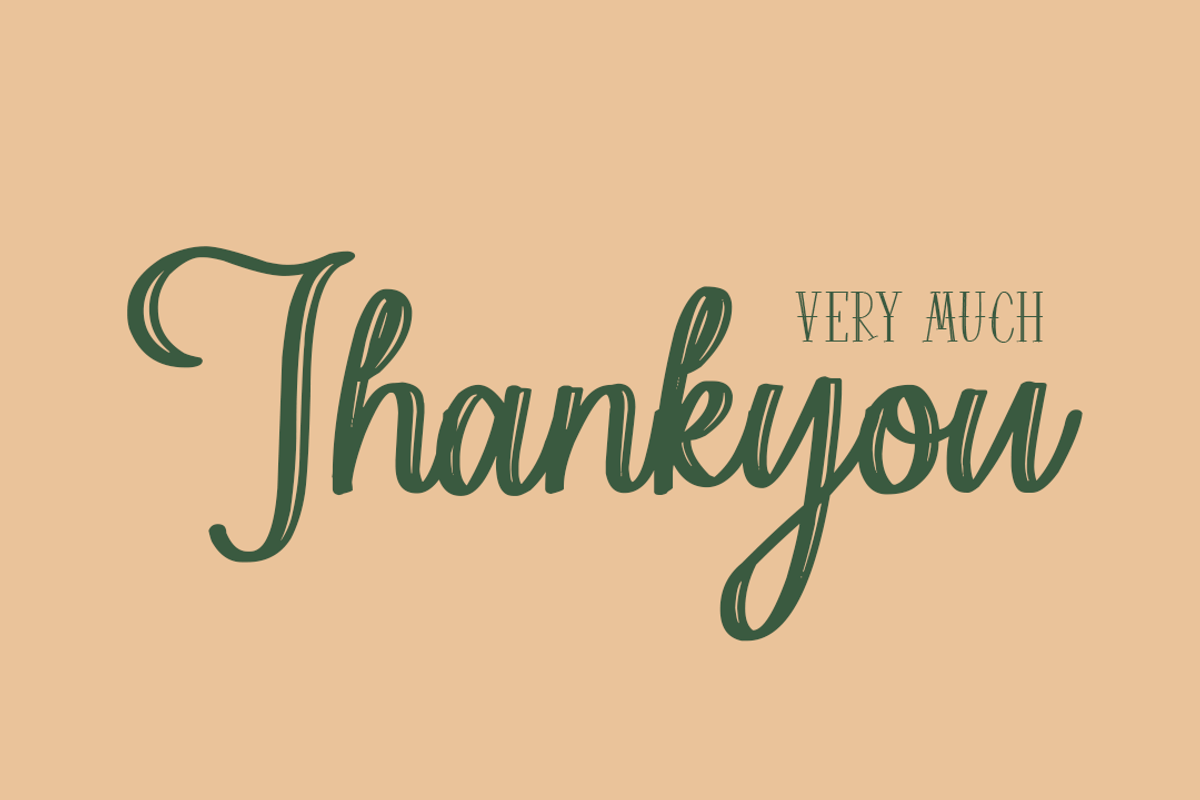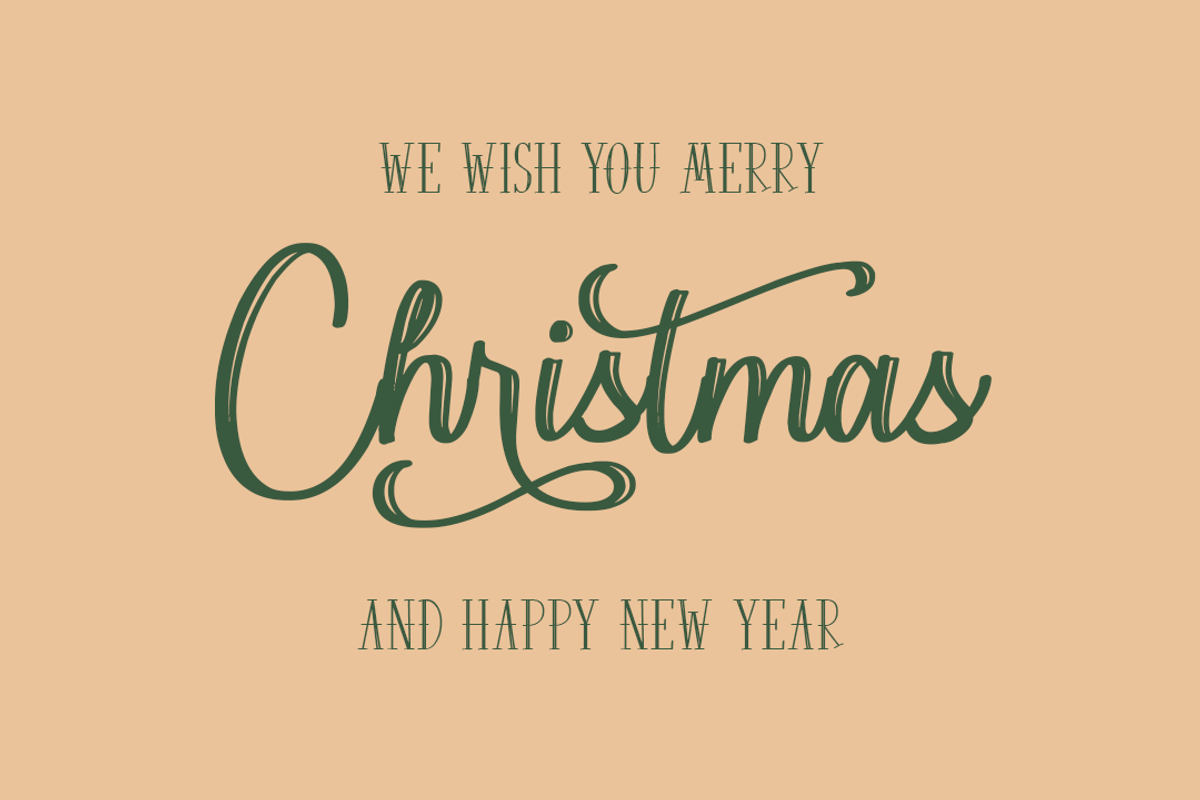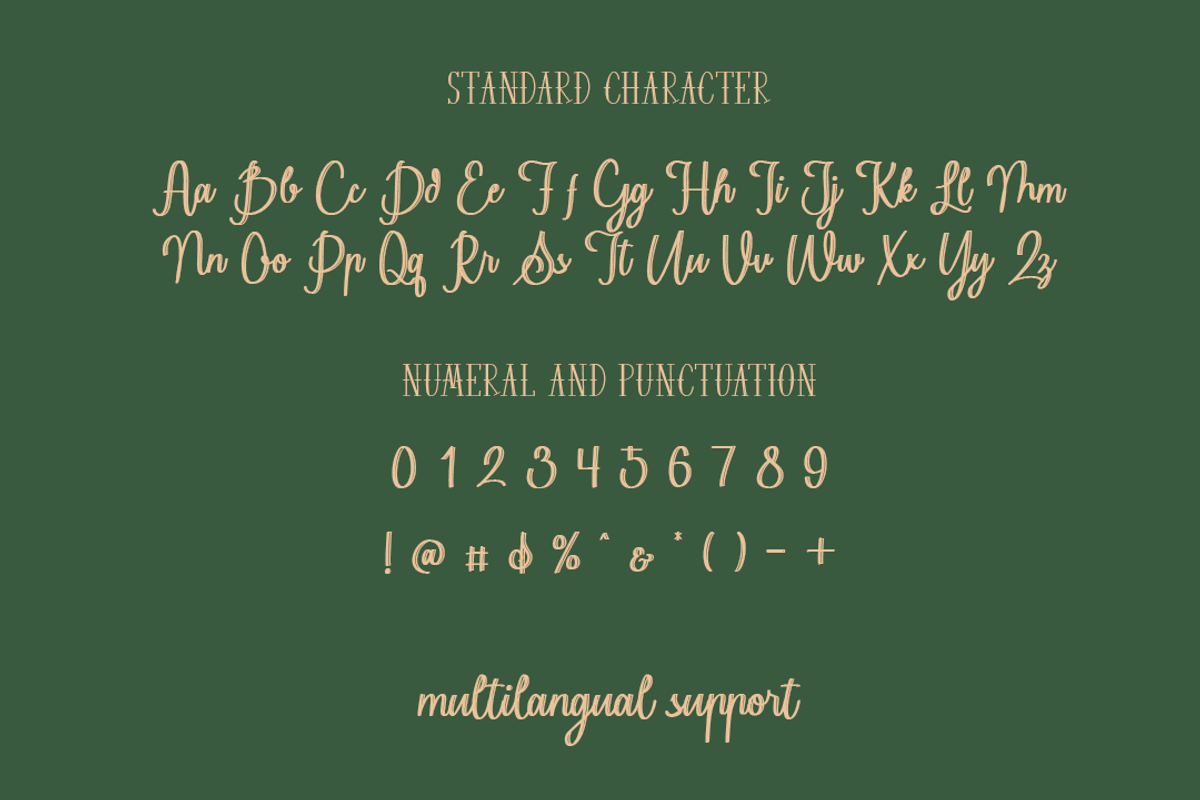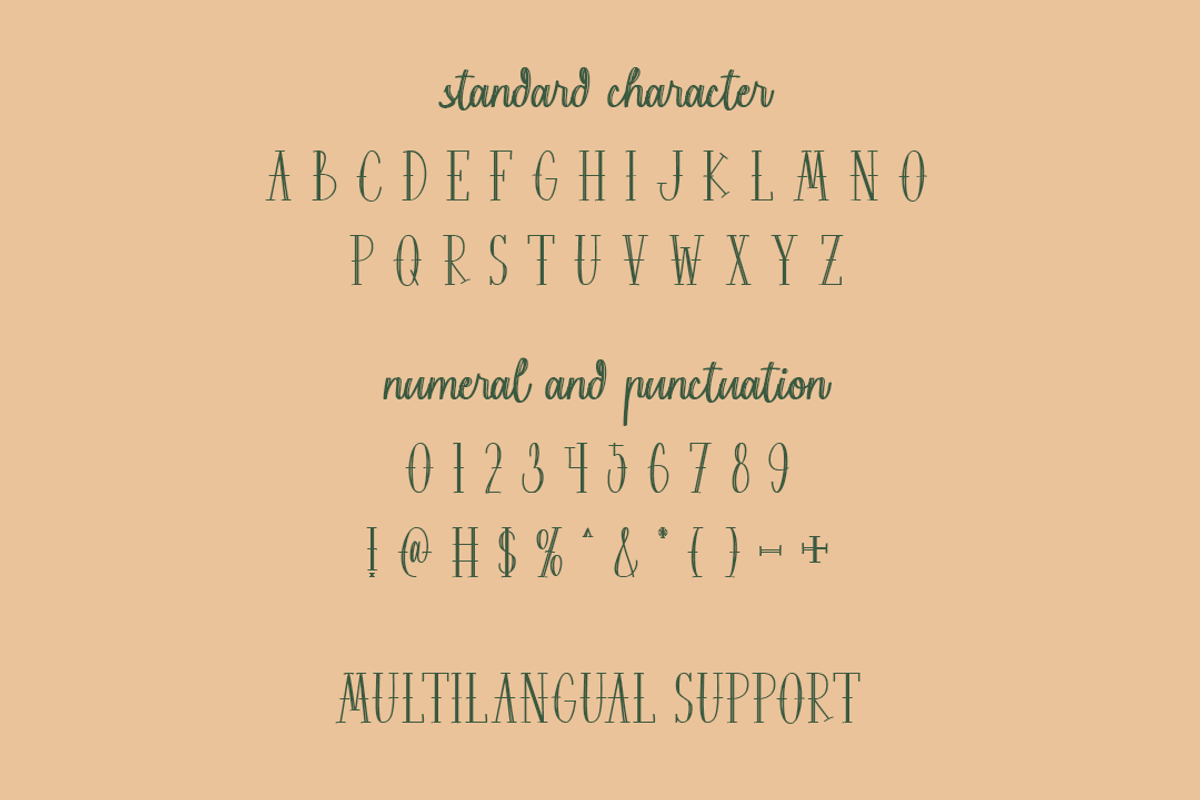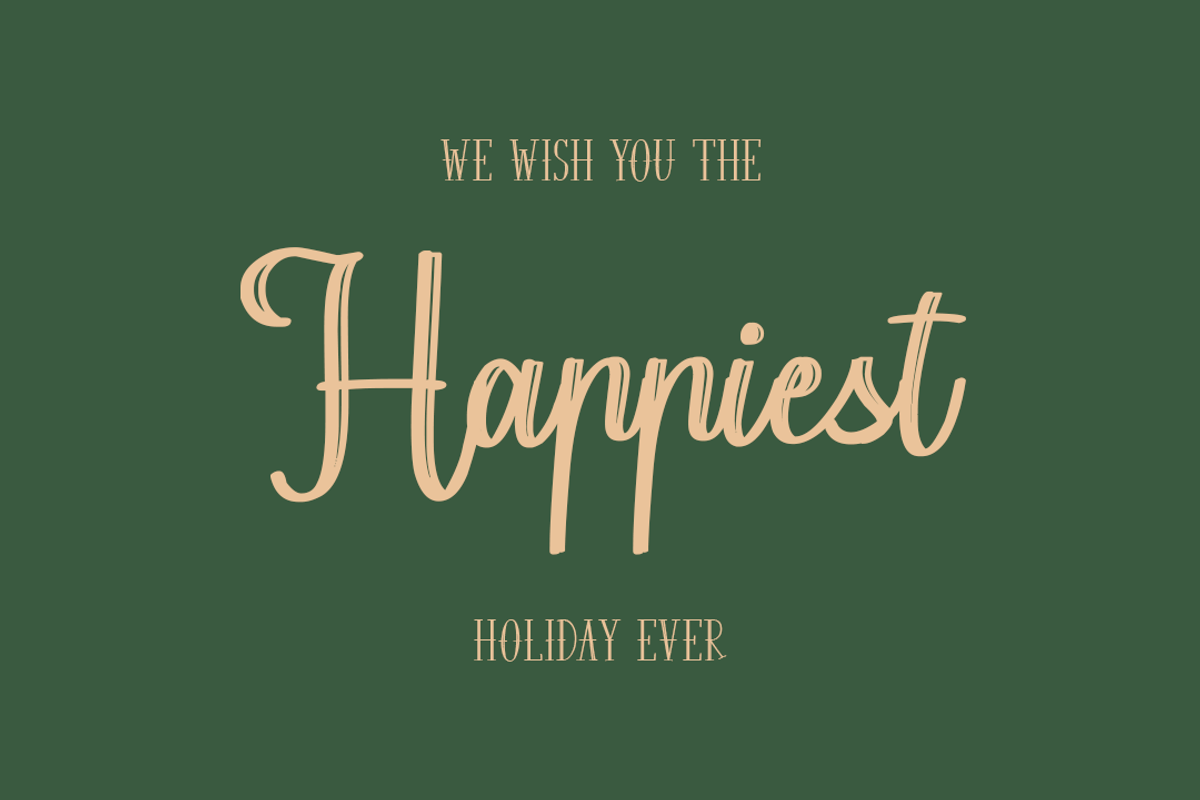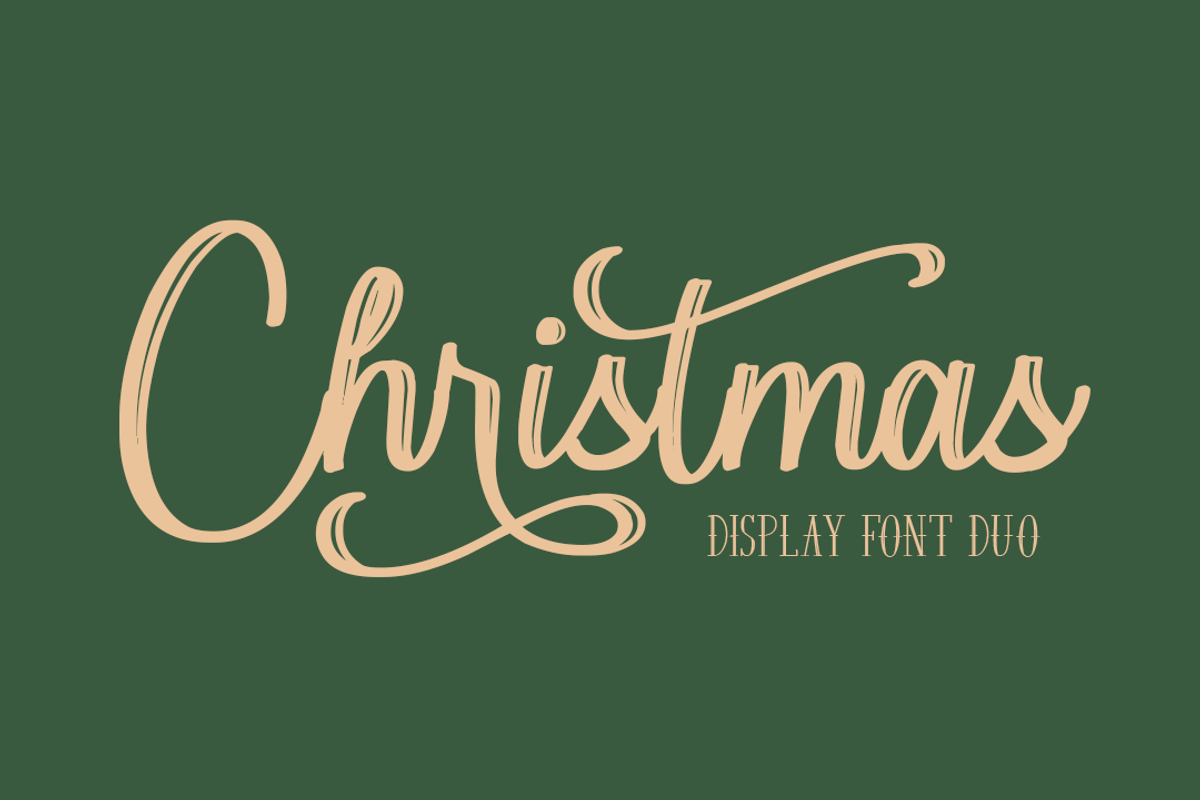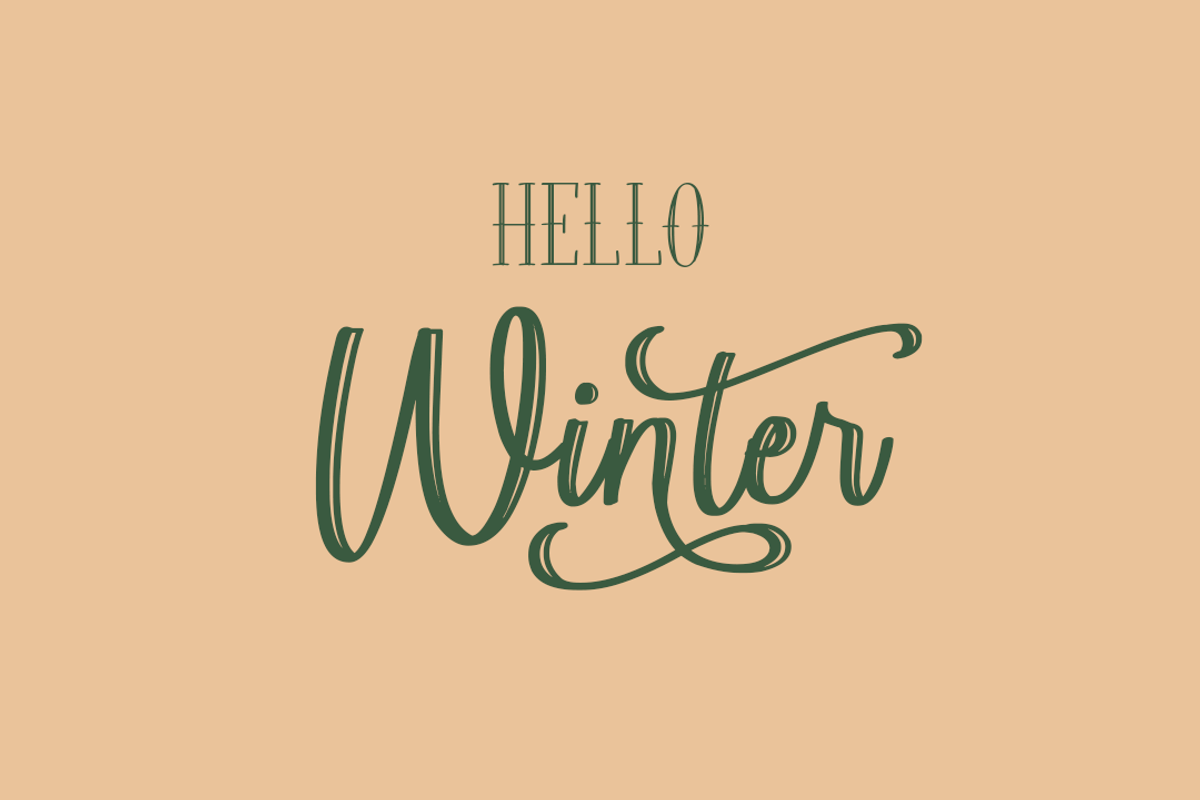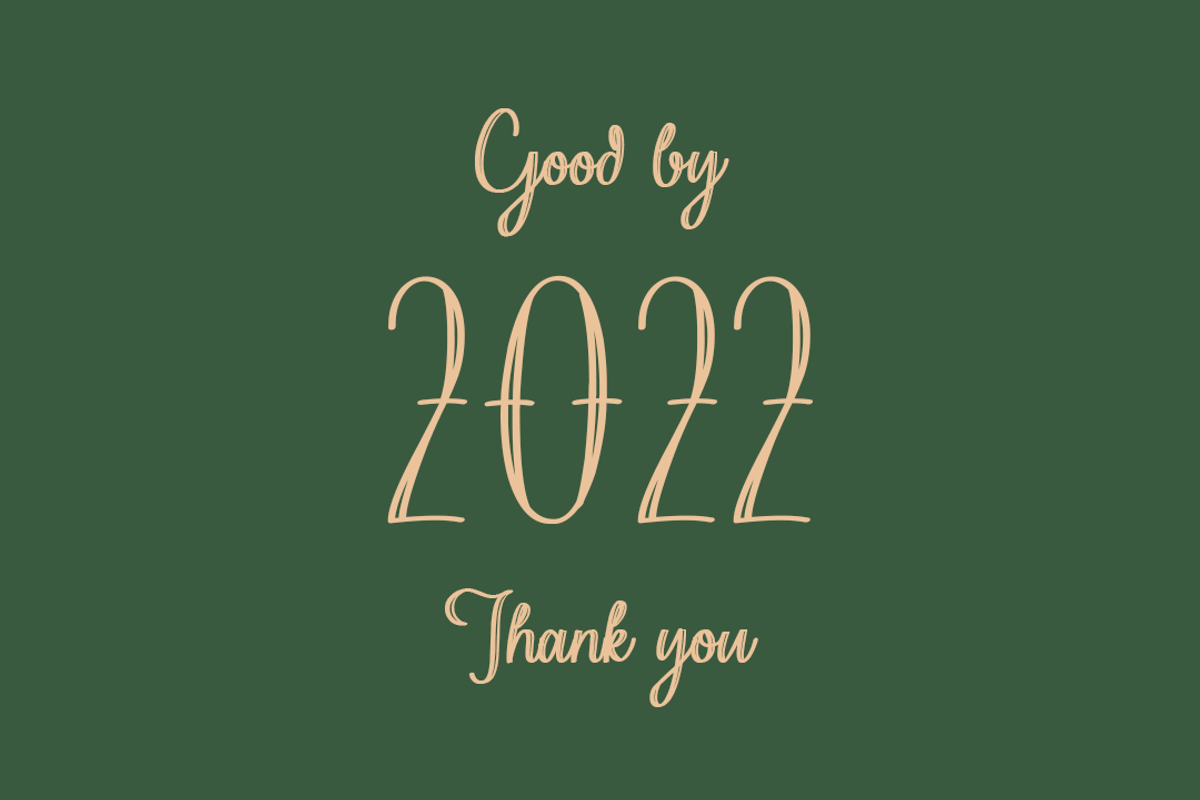
Christmas | Display Font Duo
At the end of 2022 I want to present a font to be a dessert from moove studio for all of you! Which we are proud to present Christmas.
Christmas is a unique font with two different styles, namely script and display, this font is suitable for all types of your designs such as greeting cards, invitations, banners, etc. Make sure your beautiful year-end decorations are even more complete by using the Christmas font. Enjoy!